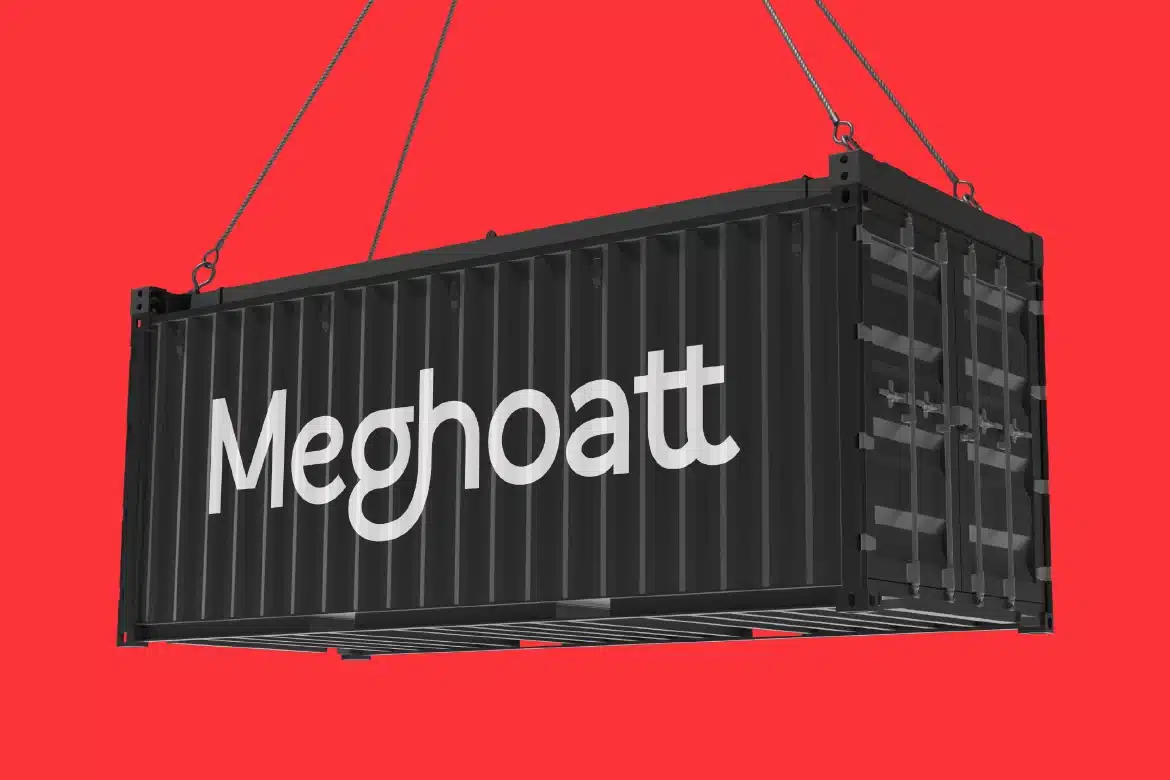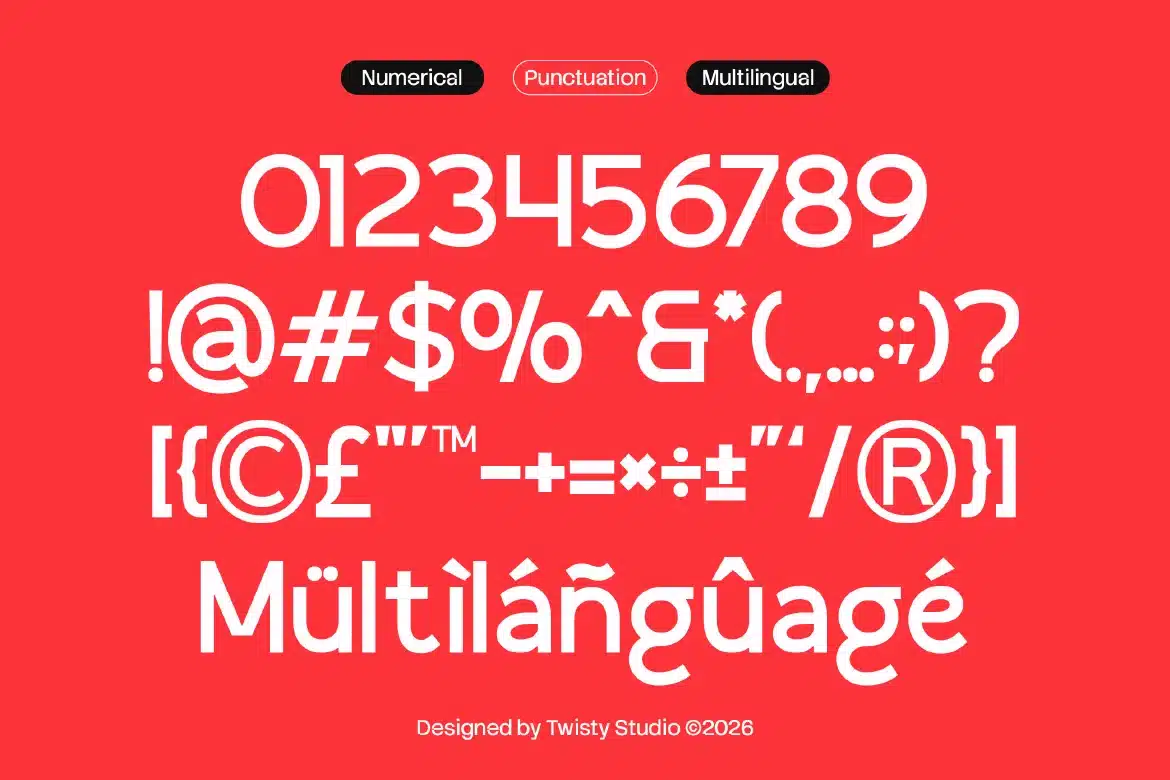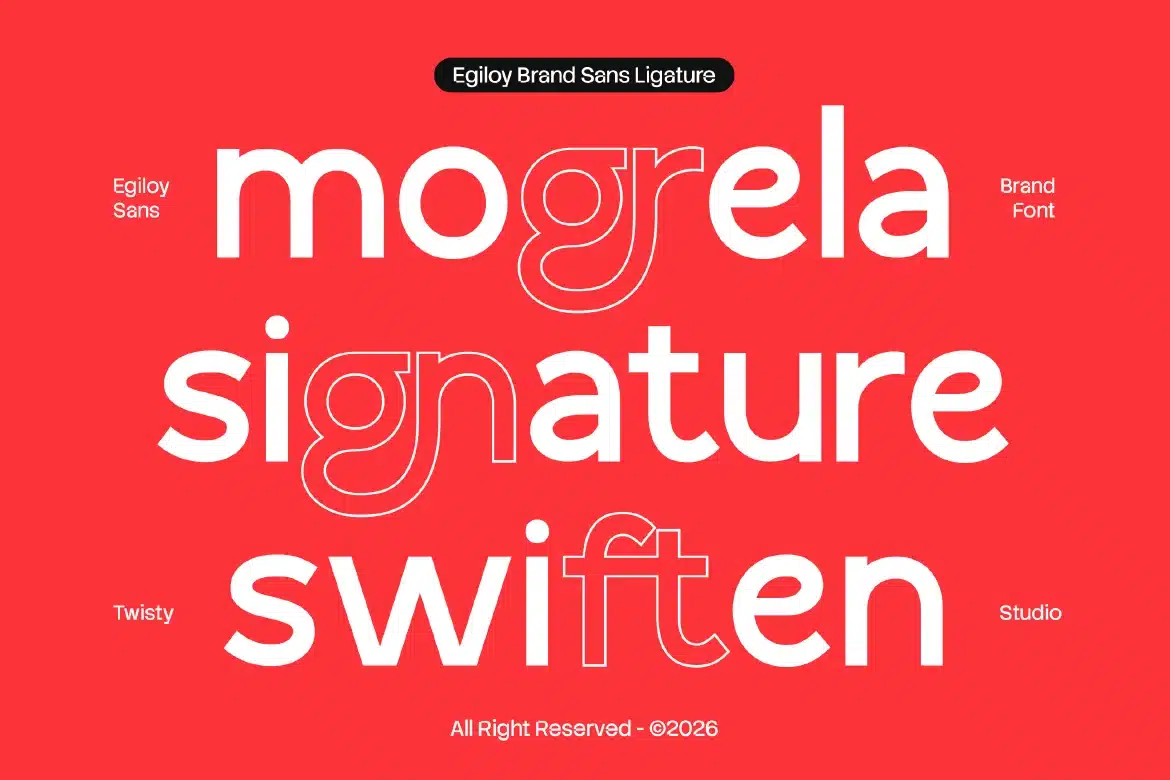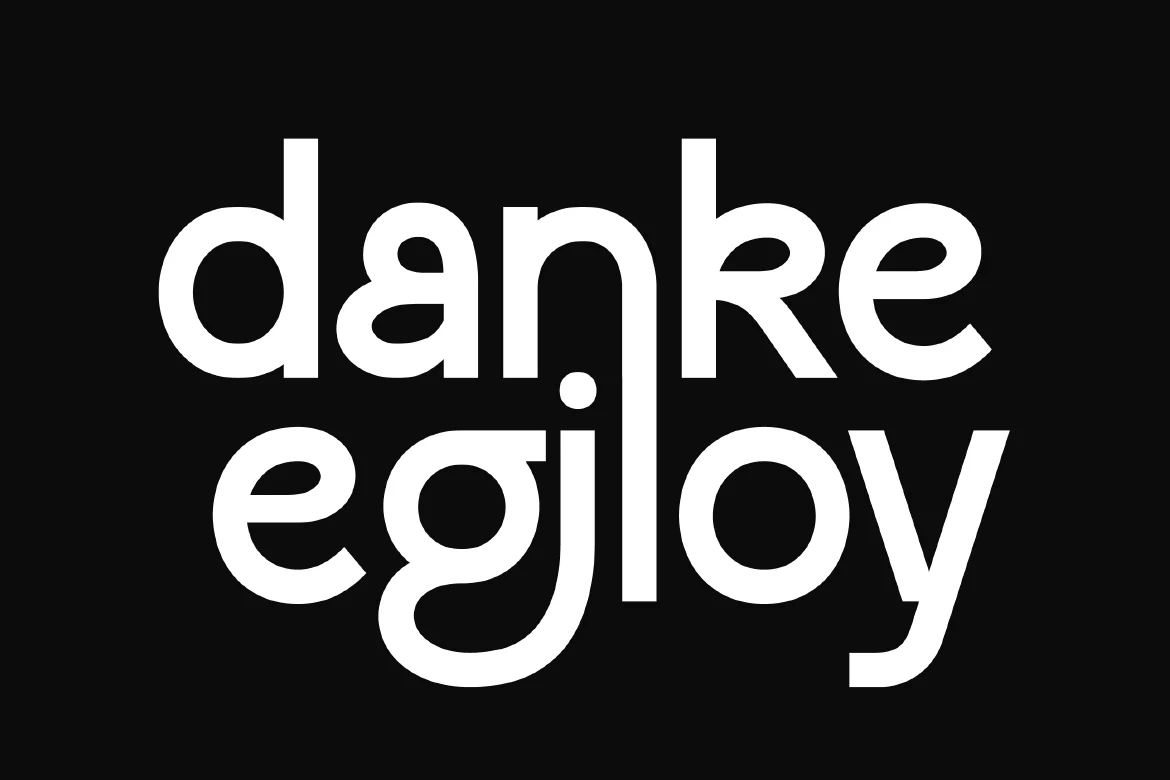
Brand Sans Serif Font – Egiloy
Egiloy is a modern brand sans typeface designed to deliver clarity, consistency, and a strong visual identity. With its clean lines, balanced proportions, and refined structure, Egiloy creates a professional and polished look that fits perfectly within contemporary branding needs. Built with versatility in mind, Egiloy adapts seamlessly across various applications, ensuring readability and visual harmony in every use. Its minimalist approach allows your brand message to stand out clearly, while maintaining a sophisticated and modern aesthetic.
Who Should Use Egiloy?
Egiloy is ideal for designers, businesses, and creatives looking for a clean and modern sans serif tailored for branding. It’s especially suited for projects that require a professional, minimal, and versatile typographic style.
Brand identity and logo design
Corporate and business visuals
Website and UI/UX design
Editorial and layout design
Packaging and product branding
Social media content
Marketing and advertising materials
Clean typography projects